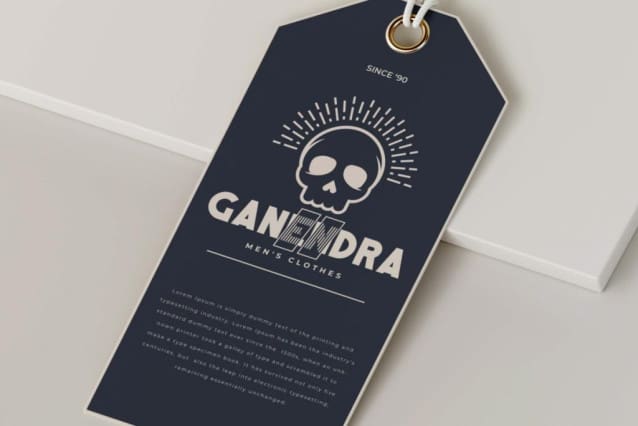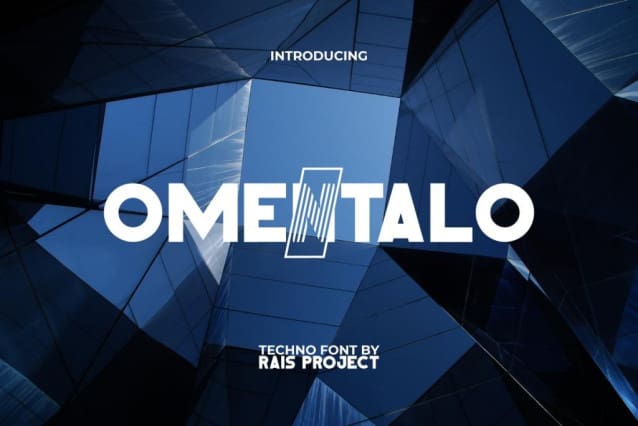
Omentalo Display Font
Omentalo Display Font, is a display font with techno and unique style. These fonts can give your designs a lot of variety and make them stand out from the crowd, such as billboard, cover, custom design, label, poster, product packaging, signage, web, and many more!
Omentalo Display Font will amaze you with its charm, so it is suitable for many industries, such as cafe, fashion, game, movie, resort and hotel, sport, techno, etc. It has full set of Uppercase letters, Lowercase letters, Numerals, Punctuation, Symbol, Alternate, and Ligature.